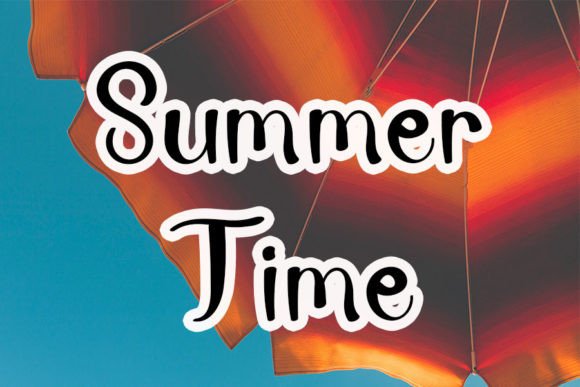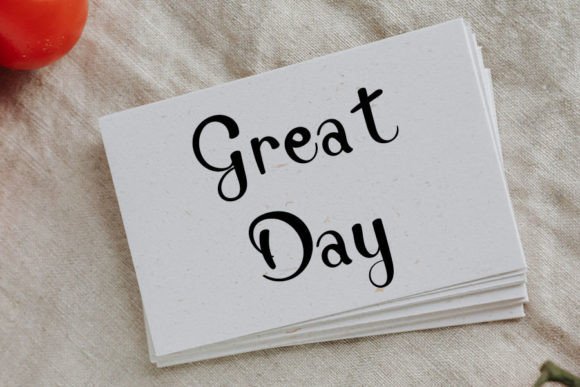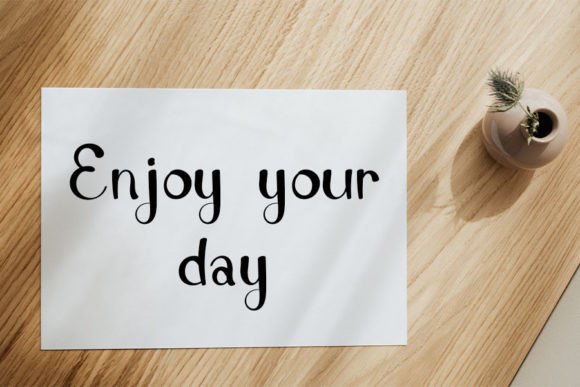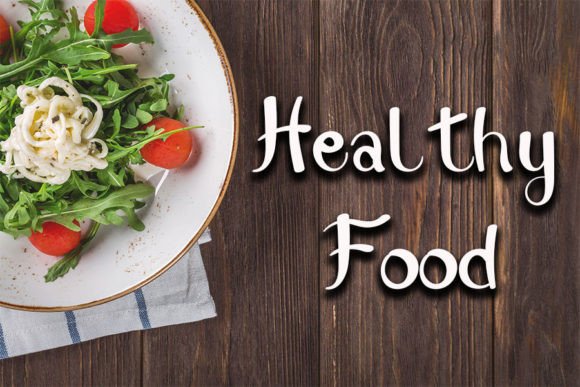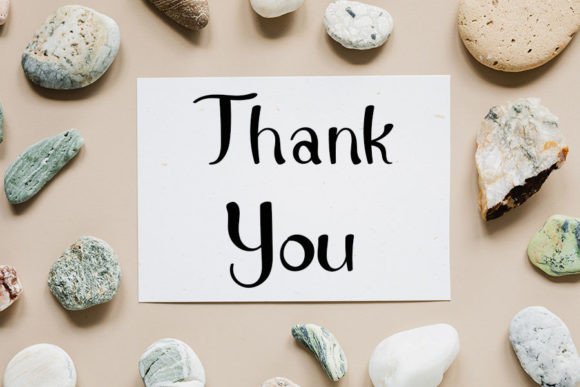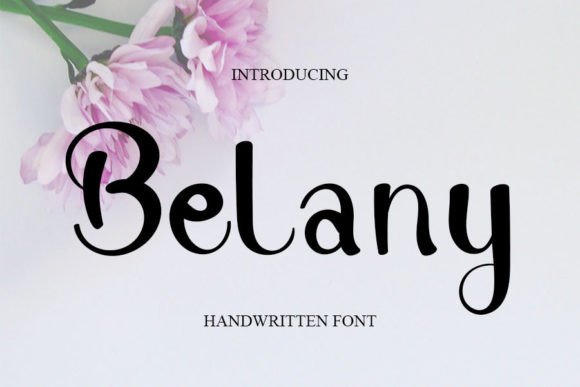
Introducing Belany Font: The Perfect Blend of Elegance and Quirkiness
Are you a designer or crafter looking for a unique and versatile font to elevate your creative projects? Look no further than Belany Font, a friendly handwritten font that combines elegance, cleanliness, and a touch of quirkiness. In this article, we’ll dive into the world of Belany Font, exploring its features, uses, and benefits for designers and crafters alike.
The Story Behind Belany Font
Belany Font is a carefully crafted handwritten font designed to bring a sense of warmth and approachability to your designs. With its clean lines, elegant curves, and subtle imperfections, Belany Font is the perfect fit for those seeking a font that’s both sophisticated and playful. Whether you’re working on a logo, branding project, social media post, or DIY craft, Belany Font is sure to make your creations stand out.
Key Features of Belany Font
- Handwritten with love: Belany Font is a genuine handwritten font, infused with the imperfections and charm of human writing.
- Elegant and clean: With its refined lines and curves, Belany Font exudes a sense of sophistication and poise.
- Quirky and playful: This font’s subtle quirks and imperfections add a touch of whimsy and fun to your designs.
- Versatile: Belany Font is suitable for a wide range of projects, from logos and branding to social media posts and DIY crafts.
Uses for Belany Font
Belany Font is an incredibly versatile font that can be used in various design projects, including:
- Logos and branding: Create a lasting impression with a unique and memorable logo that showcases your brand’s personality.
- Social media posts: Add a touch of elegance and whimsy to your social media posts, making them stand out in crowded feeds.
- DIY crafts: Use Belany Font to add a personal touch to your handmade crafts, such as greeting cards, invitations, and gift tags.
- Stationery and paper goods: Create beautiful stationery, notebooks, and paper goods that showcase your brand’s style.
Belany Font offers numerous benefits for designers and crafters, including:
- Unique and distinctive: Stand out from the crowd with a font that’s both elegant and quirky.
- Easy to read: Belany Font is clean and legible, making it perfect for body text and headlines.
- Customizable: Experiment with different colors, textures, and styles to make Belany Font your own.
- Time-saving: With Belany Font, you can create stunning designs quickly and efficiently, saving you time and effort.
Tips for Using Belany Font
To get the most out of Belany Font, try these expert tips:
- Mix and match: Combine Belany Font with other fonts to create a unique and visually appealing design.
- Experiment with colors: Try out different colors and textures to add depth and interest to your designs.
- Play with sizes: Use Belany Font in various sizes to create visual hierarchy and emphasis.
- Add embellishments: Use graphics, illustrations, and other embellishments to enhance your designs and make them more engaging.
Belany Font is a versatile and charming handwritten font that’s perfect for designers and crafters seeking a unique and elegant solution for their creative projects. With its clean lines, quirky imperfections, and sophisticated curves, Belany Font is sure to elevate your designs and make them stand out. Try Belany Font today and discover a world of creative possibilities!